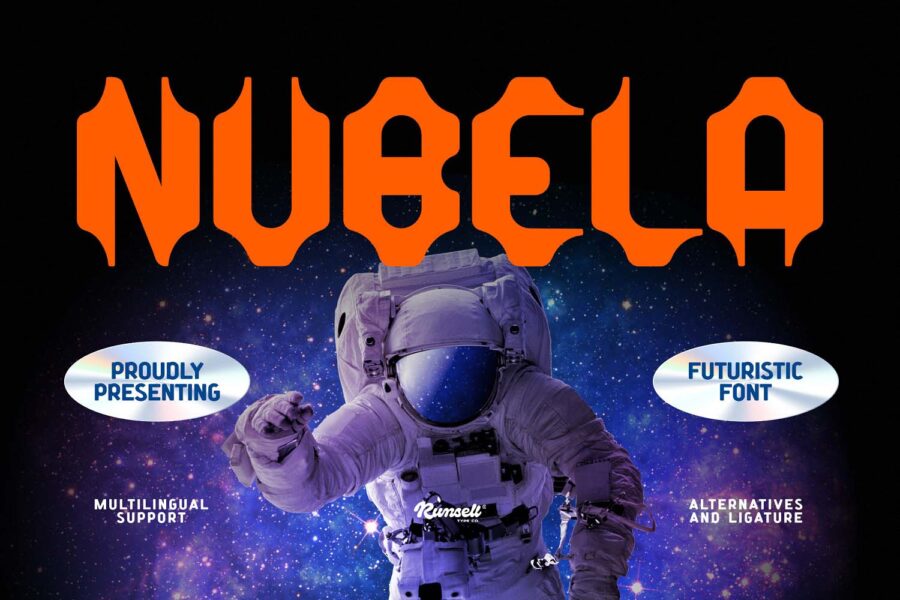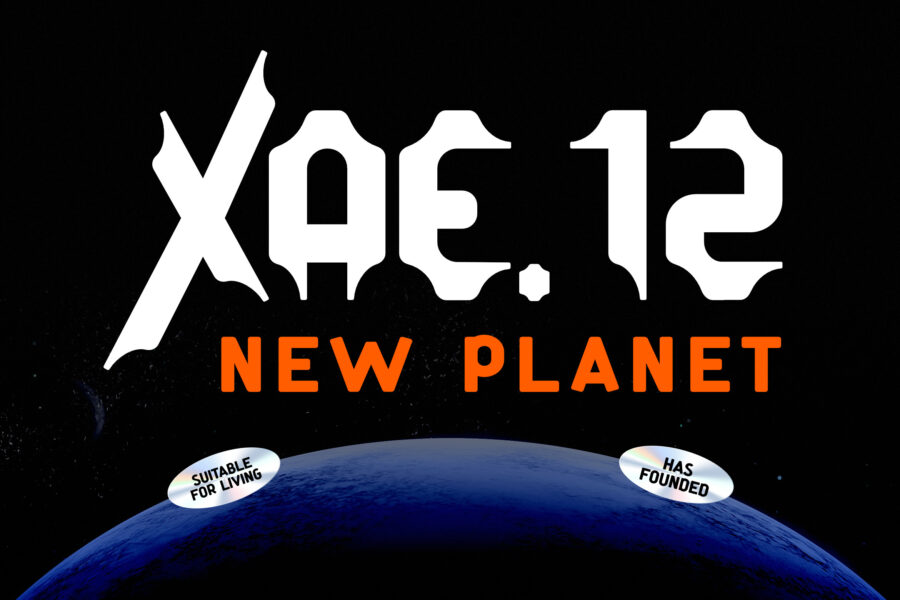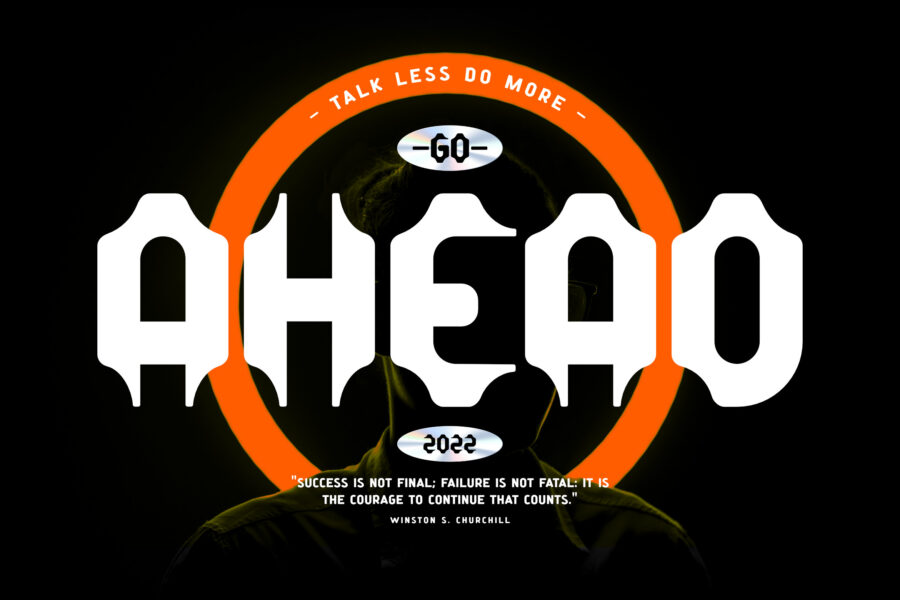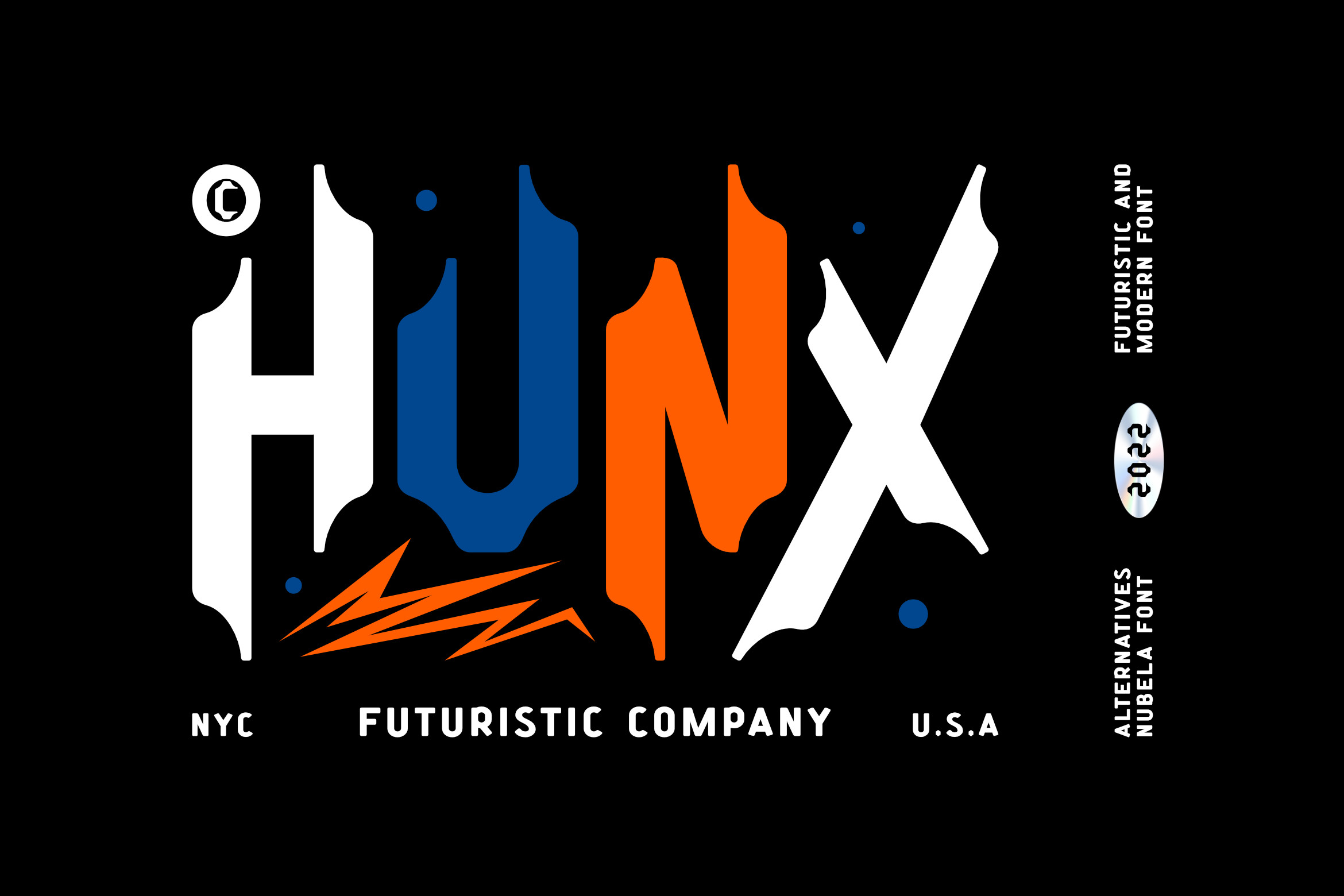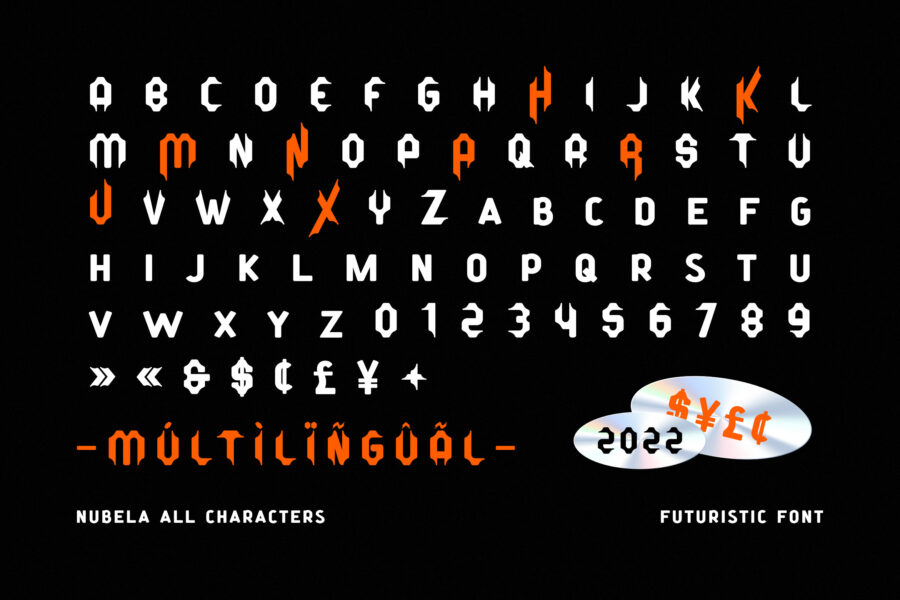
Nubela is a futuristic display font that pushes the boundaries of typographic design with its bold, experimental shapes and high-impact presence. Inspired by sci-fi themes, space exploration, and tech innovation, Nubela blends brutalist curves with angular cuts to create an ultra-modern and expressive typeface. Each letterform is crafted to evoke a sense of cosmic movement and visual intrigue, making it ideal for headlines, posters, apparel branding, and digital media projects that require a strong visual identity.
With multilingual support, stylistic alternates, and distinctive ligatures, Nubela offers flexible creative control for designers seeking a unique voice. Its high-contrast letterforms stand out across any medium—whether paired with vivid color schemes or used in stark monochrome compositions. Perfect for music covers, streetwear, tech branding, and editorial design, Nubela is not just a font—it’s a visual statement of the future.
Nubela